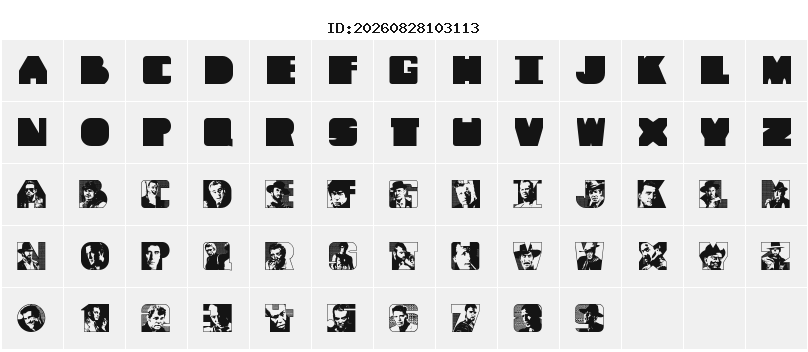
• Font Name: Tough Guys
• Full Font Name: Tough Guys
About Tough Guys.ttf
Tough Guys.ttf is a modern, elegant sans-serif font designed for ultimate readability and visual harmony. Perfect for branding, headlines, web design, and print materials.